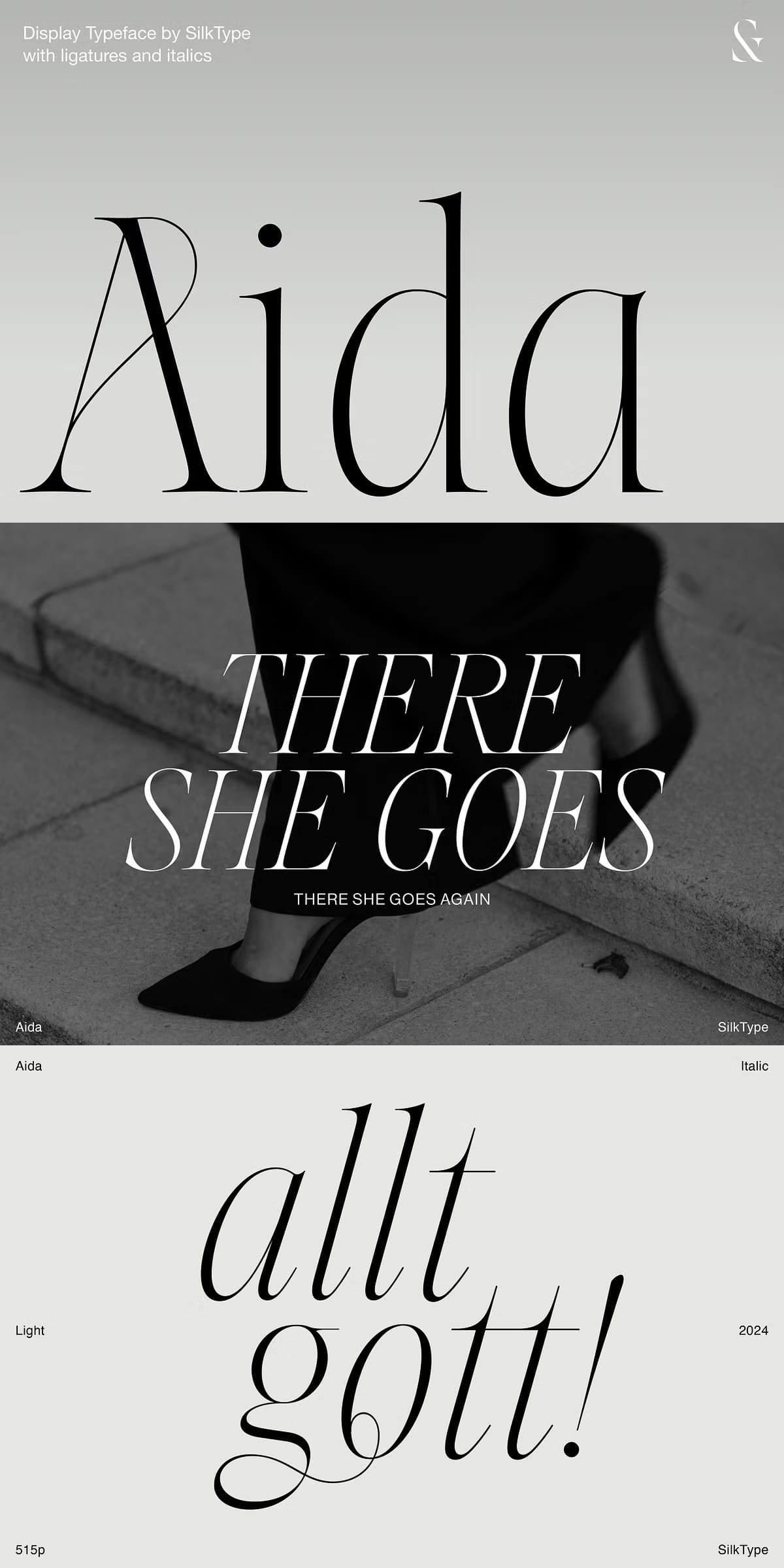
Make your design projects stand out with Aida, a meticulously crafted high-contrast display font that embodies elegance and sophistication. Designed to capture attention, Aida features extra thin serifs and delicate hairlines that create a distinctive and refined appearance, perfect for designers seeking to make bold yet graceful statements.
Key Features of the Aida Typeface
- High Contrast Design: The dramatic contrast between thick strokes and ultra-thin serifs adds visual interest and sophistication to any project.
- Elegant Serifs: Extra thin serifs provide a delicate touch that enhances readability while maintaining an upscale aesthetic.
- Refined Hairlines: Fine hairline details contribute to the font’s unique character, making it ideal for luxury branding or editorial headlines.
- Diverse Applications: Whether you’re designing invitations, logos, magazine covers, or packaging, Aida adapts seamlessly across various mediums.
The Perfect Choice for Striking Visual Statements
Aida is more than just a typeface; it’s an artistic tool designed to elevate your creative vision. Its high contrast elements command attention without overwhelming the viewer. This balance makes it especially suitable for projects where elegance meets impact — from fashion editorials to premium product branding.
The slender serifs combined with bold strokes allow designers to play with hierarchy effectively while maintaining harmony throughout their layouts. When used at larger sizes in headlines or titles, Aida delivers maximum visual appeal; at smaller sizes in subheadings or captions, its clarity remains uncompromised thanks to its thoughtful design nuances.
Create Timeless Designs with Aida
If you want your work to exude timeless beauty paired with modern flair, look no further than the Aida typeface family. Its sophisticated style ensures your designs will resonate deeply with audiences who appreciate both tradition and contemporary aesthetics alike.
Add depth and refinement by pairing it thoughtfully alongside complementary fonts — whether clean sans-serifs or classic scripts — allowing you endless possibilities in crafting memorable brand identities or editorial layouts that captivate readers instantly.